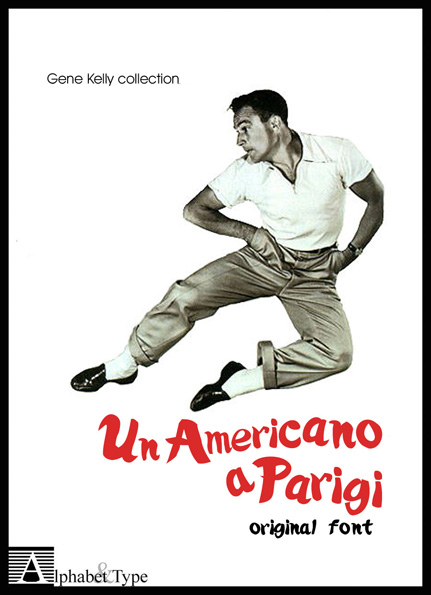
Font name: | Un Americano A Parigi |
Author: | Alphabet & Type |
Note by Alphabet & Type | |
AN AMERICAN IN PARIS font: directly from the Best movie by Vincente Minnelly, with GENE KELLY and LASLIE CARON, the original font for all lovers. |